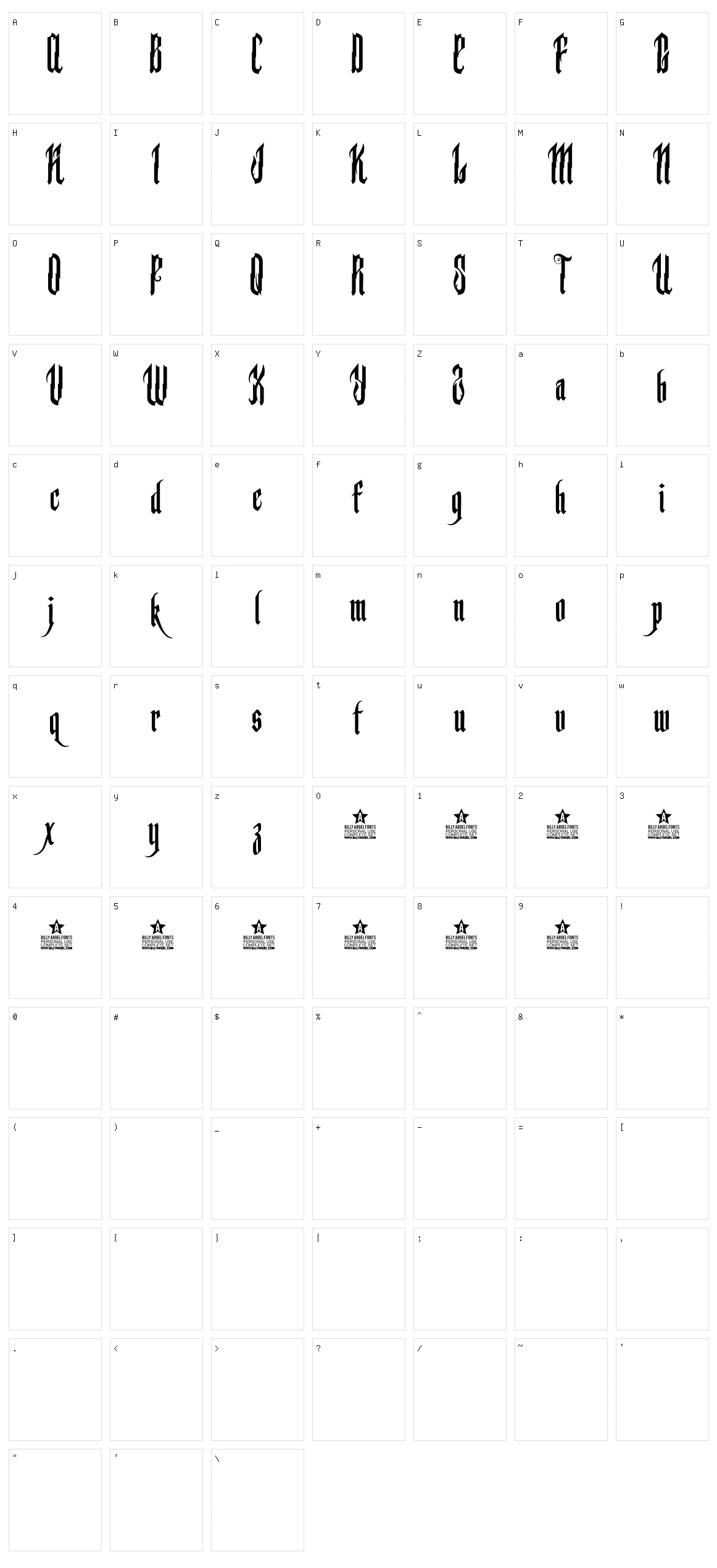
Backstab
Designed by: Billy Argel Fonts ?
Description: The free font Backstab is carefully designed by Billy Argel Fonts ?, showcasing a thoughtful balance of creativity and usability and belongs to the Gothic font family. When you download the ZIP file, it contains only 256.65 KB of font files, making it lightweight and quick to download. Please review the license details below to understand permitted usage and distribution rights. If license information is not available, we recommend using this font for personal projects only or contacting the author directly for commercial usage permissions.